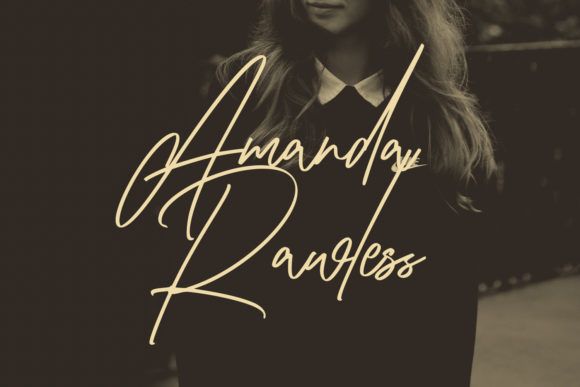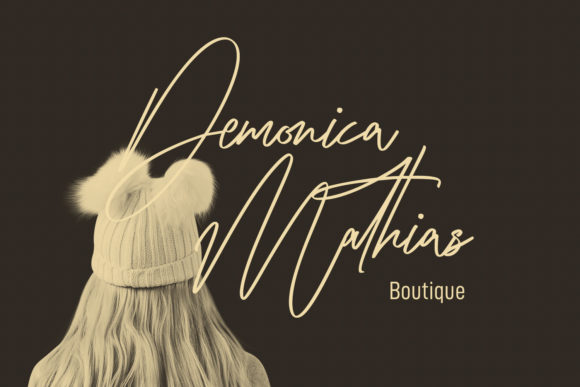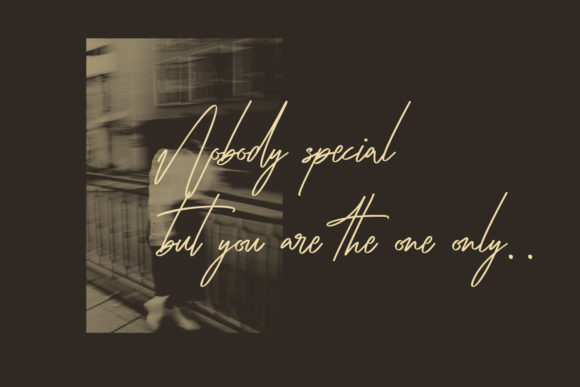
The Coopslight Font: A Designer’s New Best Friend
I’ll never forget the time I was working on a branding project for a trendy new cafe, and I just couldn’t find the right font to capture their quirky, artistic vibe. The client was specific about wanting something that felt both elegant and playful, and I was determined to deliver. That’s when I stumbled upon the Coopslight font, and let me tell you, it was love at first sight! ✨
So, what makes Coopslight so special? Here are a few things I absolutely love:
- 💃 **Tall and Expressive**: Coopslight is a signature font that’s tall, lean, and mean – in the best possible way! It’s perfect for headlines, titles, and anywhere you want to make a statement.
- 🎉 **Fun Characters and Ligatures**: This font comes with a bunch of fun characters, ligatures, and alternates that will add a touch of whimsy to your designs.
- 👍 **Medium Strokes**: The medium strokes give Coopslight a smooth, elegant feel that’s perfect for a wide range of projects.
- ✅ **Easy to Read**: Despite its unique style, Coopslight is surprisingly easy to read, even at smaller sizes.
Of course, no font is perfect, and there are a few small quirks to be aware of:
- 🤔 **Limited Use in Body Text**: While Coopslight is amazing for headlines and titles, it’s not the best choice for body text. It’s a bit too ornate for long blocks of text.
- ⚠️ **Some Characters May Not Display Correctly**: As with any font, there may be some characters that don’t display correctly on all devices or platforms.
The Story Behind Coopslight
While the exact story behind Coopslight’s creation is unclear, it’s likely that the designer was inspired by the classic elegance of traditional sign painting combined with a modern twist. The result is a font that’s both nostalgic and fresh.
| Is Coopslight suitable for body text? | While Coopslight is beautiful, it’s not ideal for long blocks of body text. It’s best used for headlines, titles, and short paragraphs. |